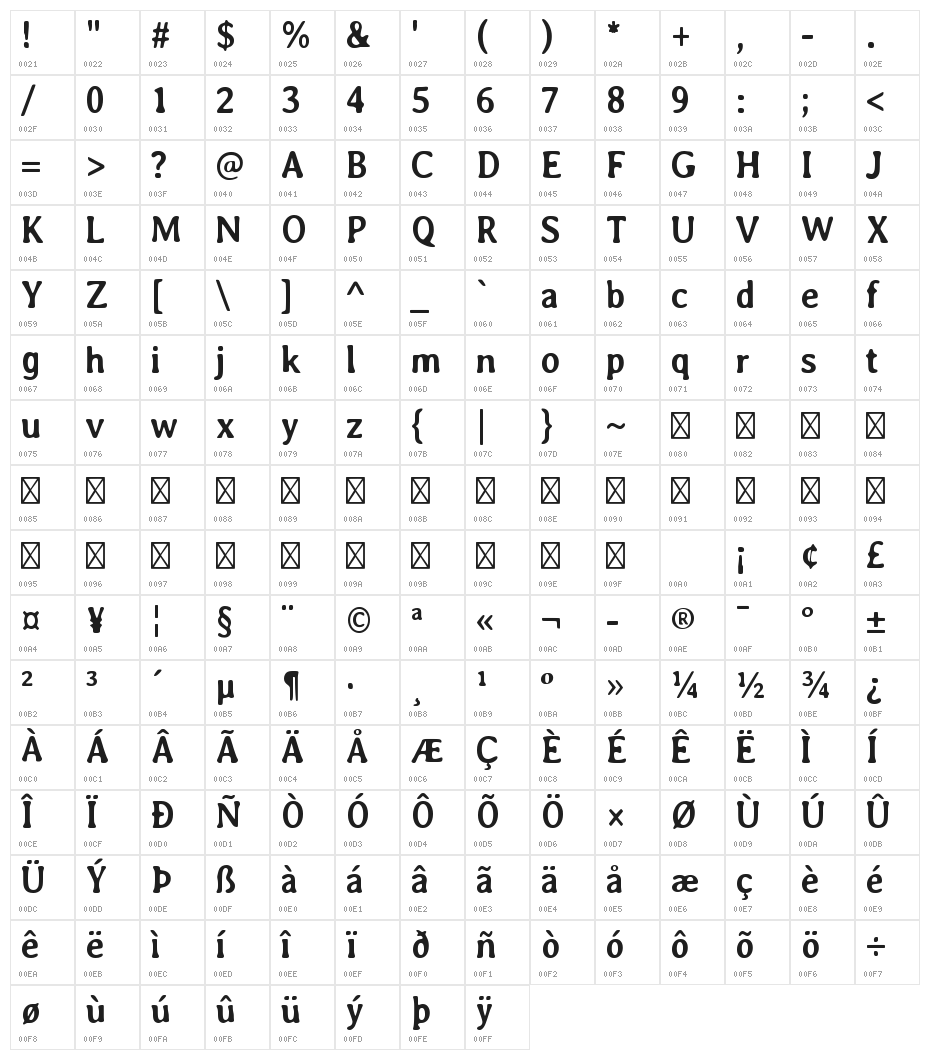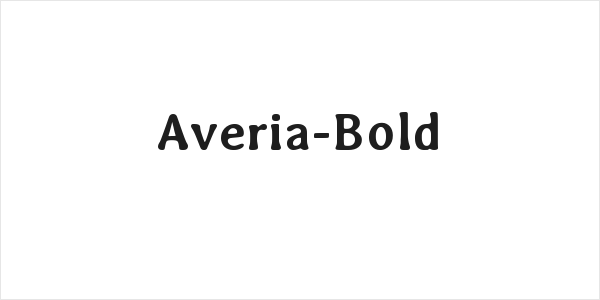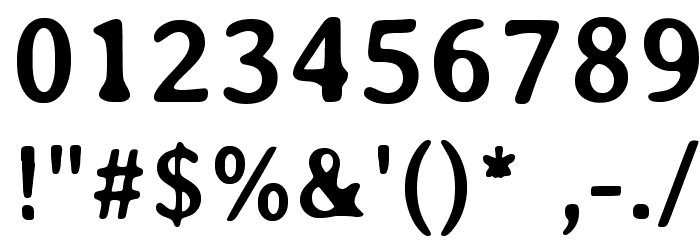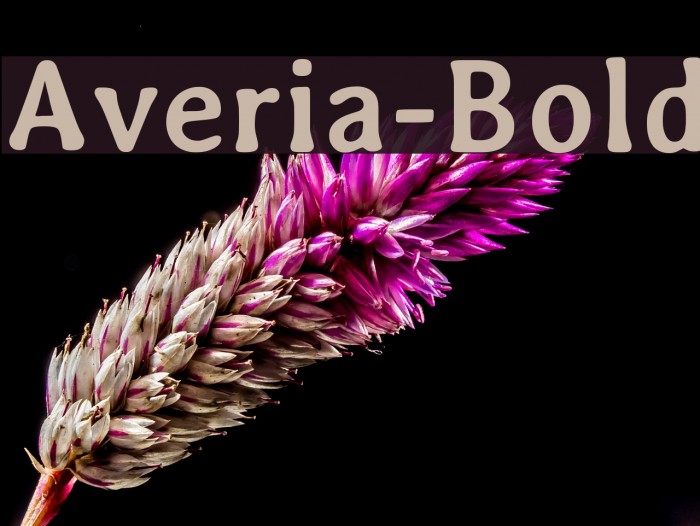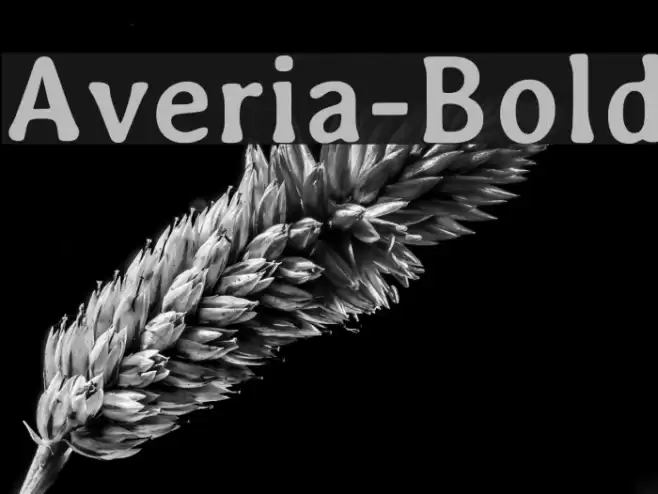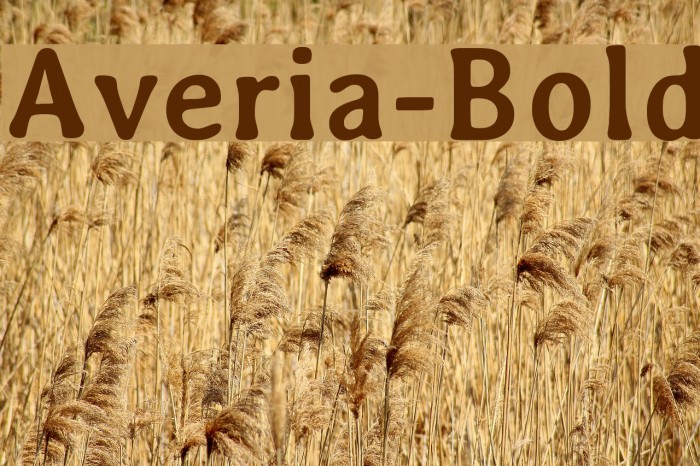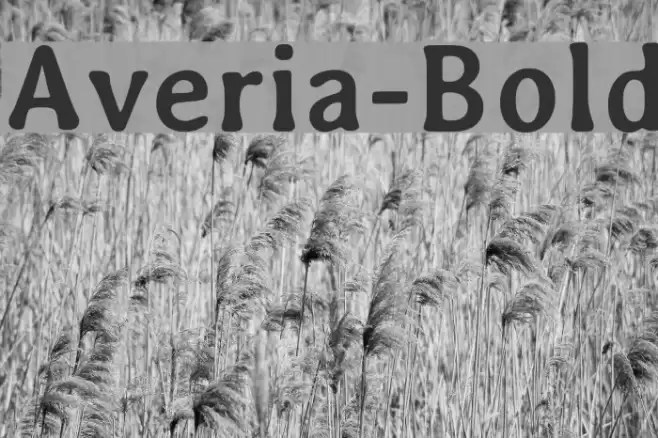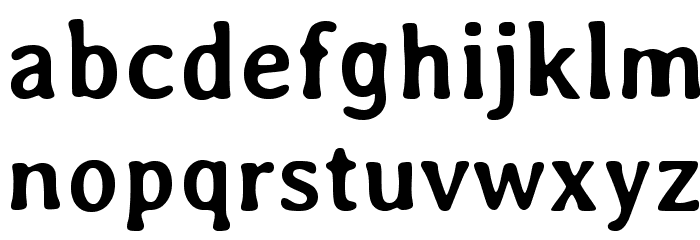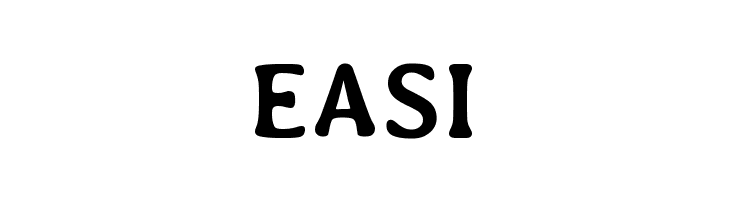
Averia-Bold Font
Averia-Bold Description
This font features a playful and rounded design with a bold weight, giving it a friendly and approachable appearance. The characters have a slightly irregular shape, adding a unique and handcrafted feel. The strokes are consistent in thickness, providing a uniform look across all letters and numbers. The font maintains a balance between readability and style, making it suitable for various creative applications. Its rounded edges and smooth curves contribute to its inviting and warm aesthetic, making it ideal for projects that require a personal touch.
| Overall Style | Playful |
| Use Case | Headlines, Logos, Invitations |
| Proposed Projects | Ideal for children's books, playful branding, greeting cards, and casual invitations. |